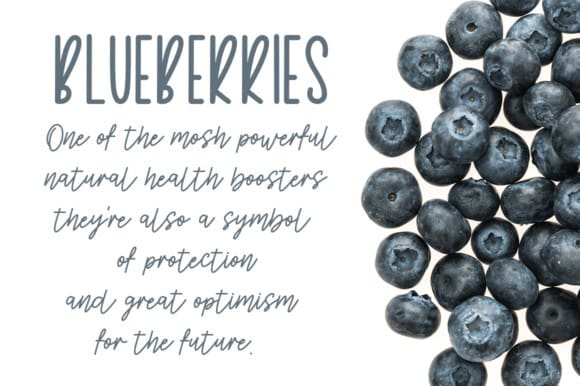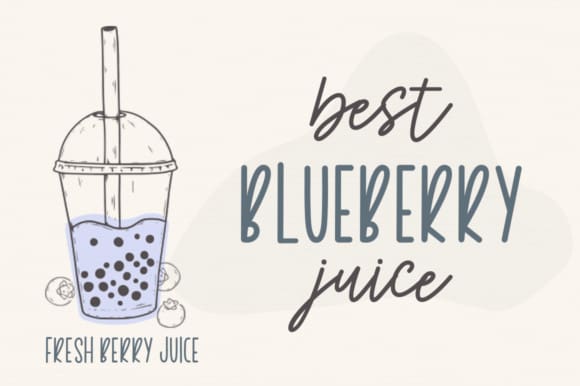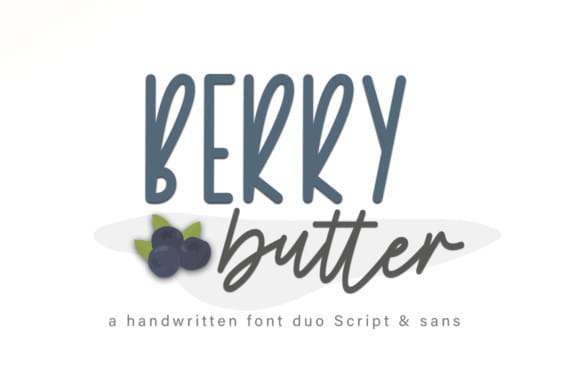
Berry Butter Font Duo
Berry Butter Font Duo is a cute and unique handwritten and sans serif duo font. It looks great on thank you cards, cup holders, greeting cards, business cards, and any other design that calls for unique typography.